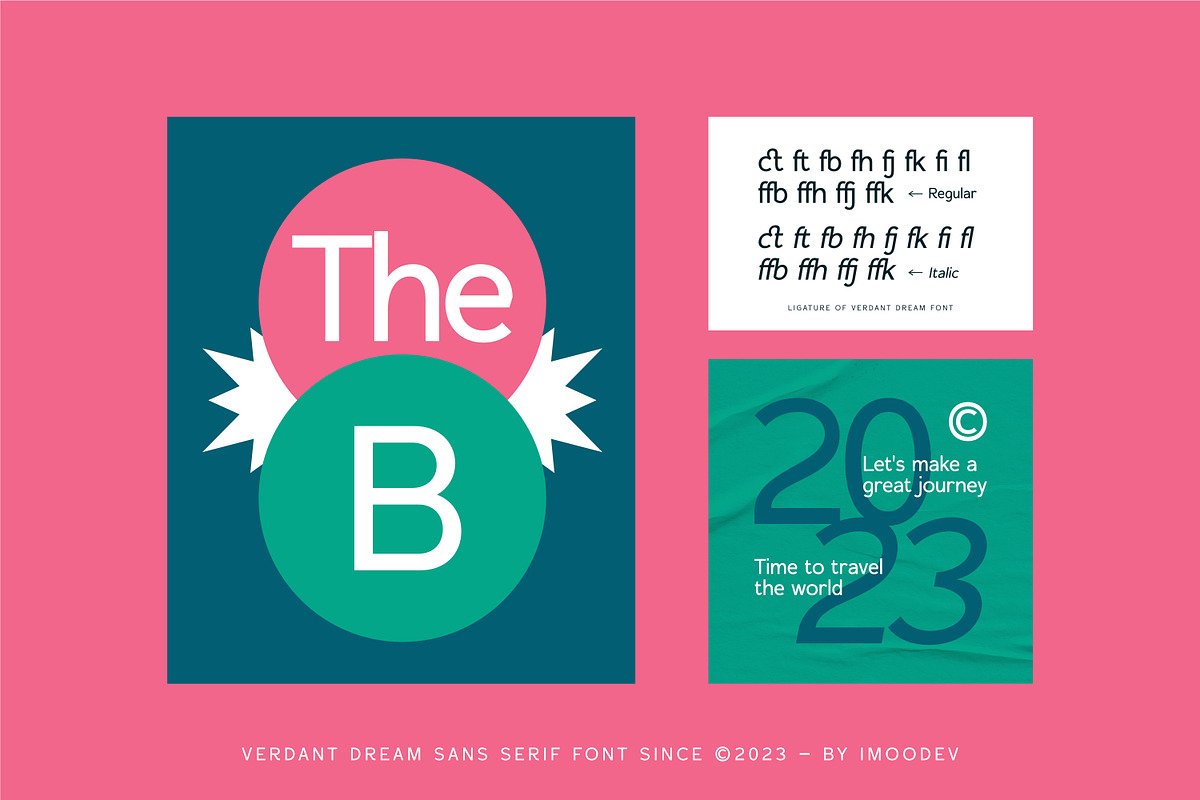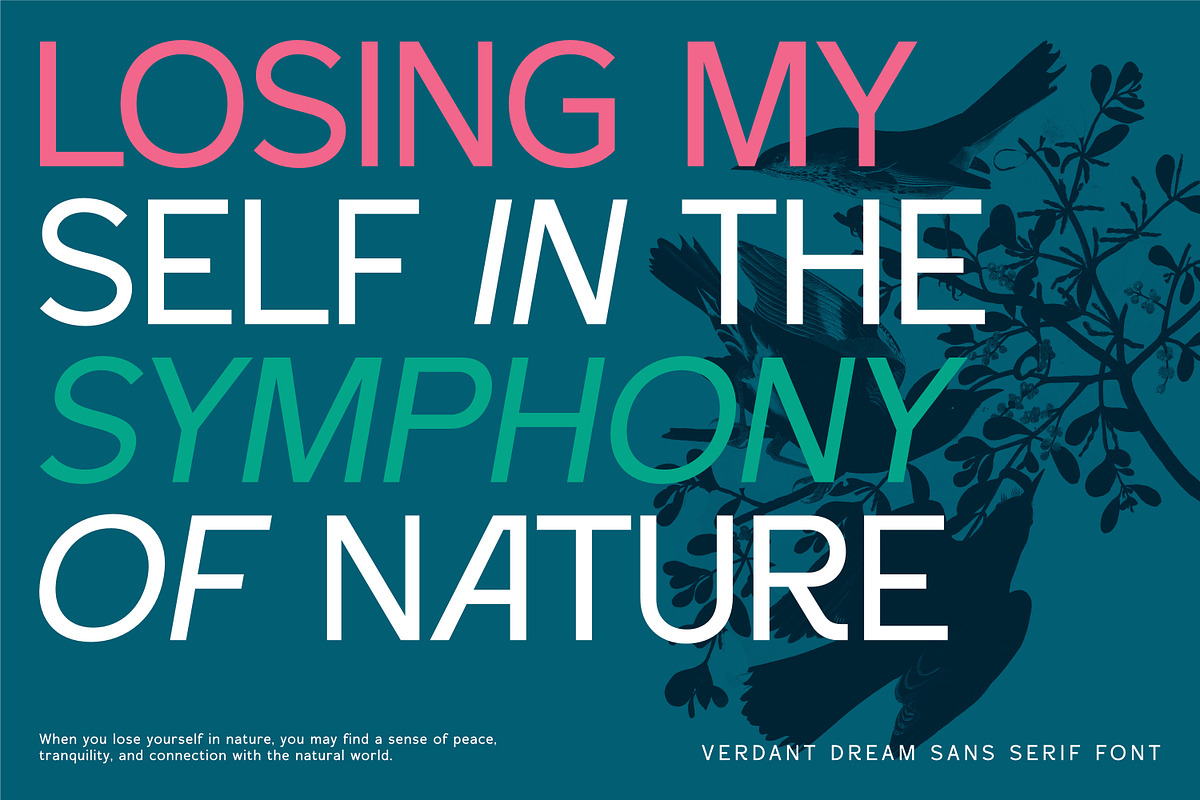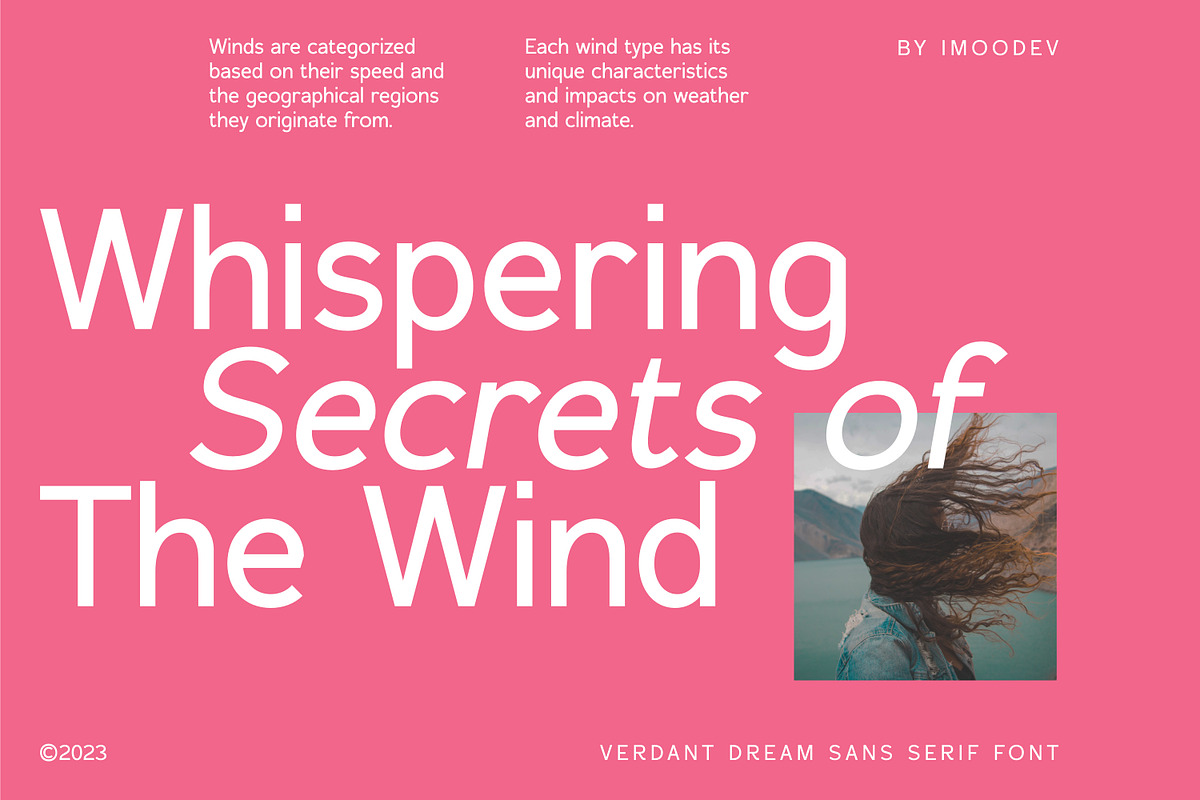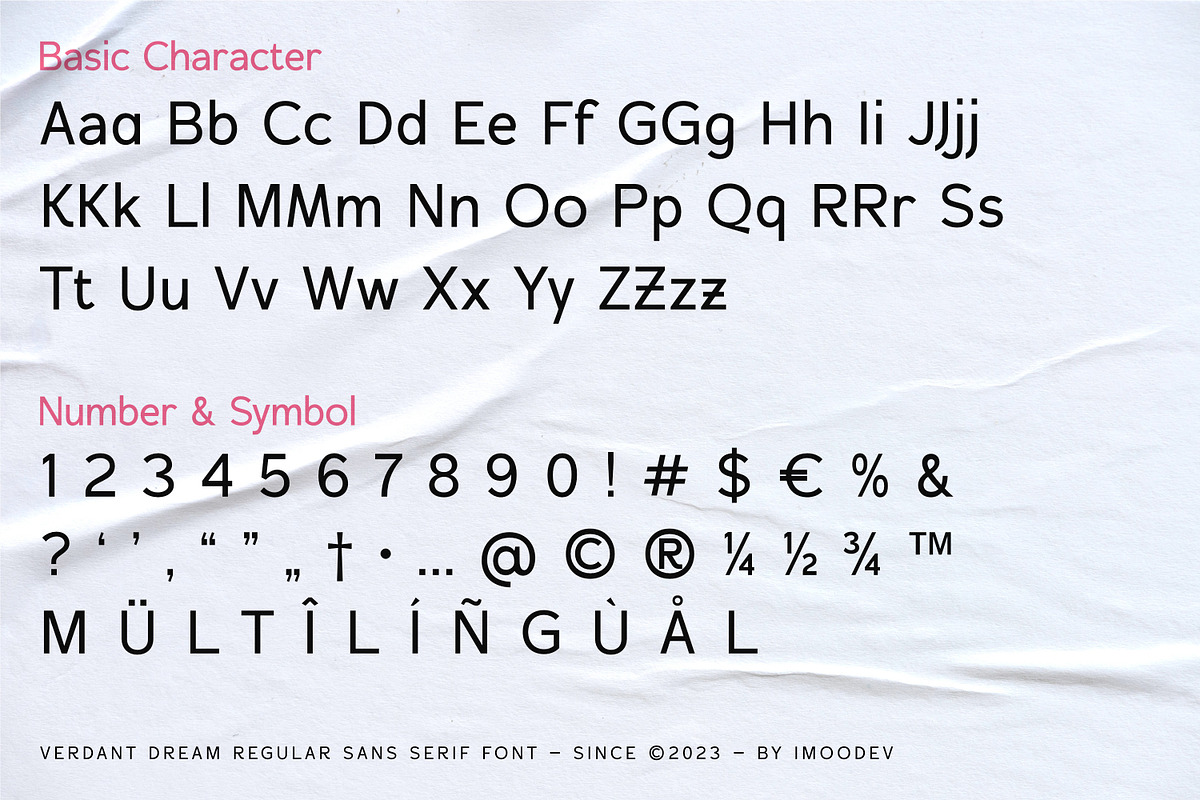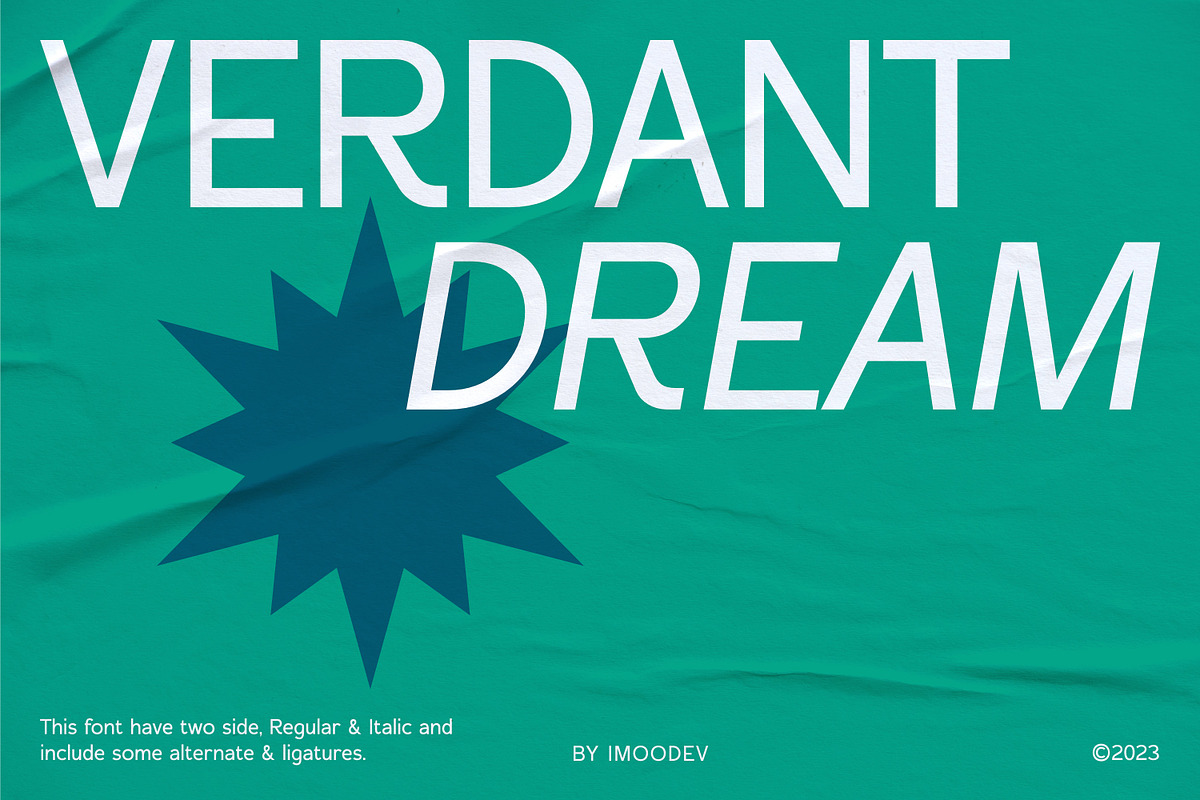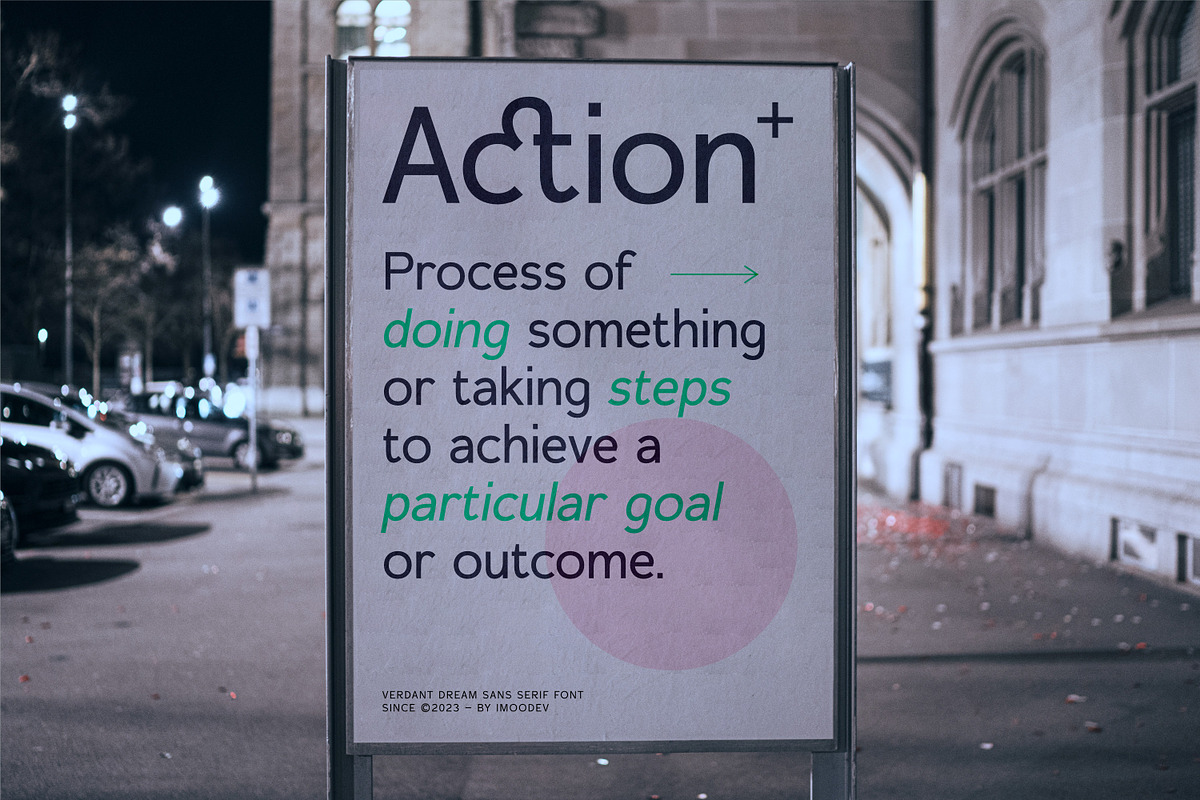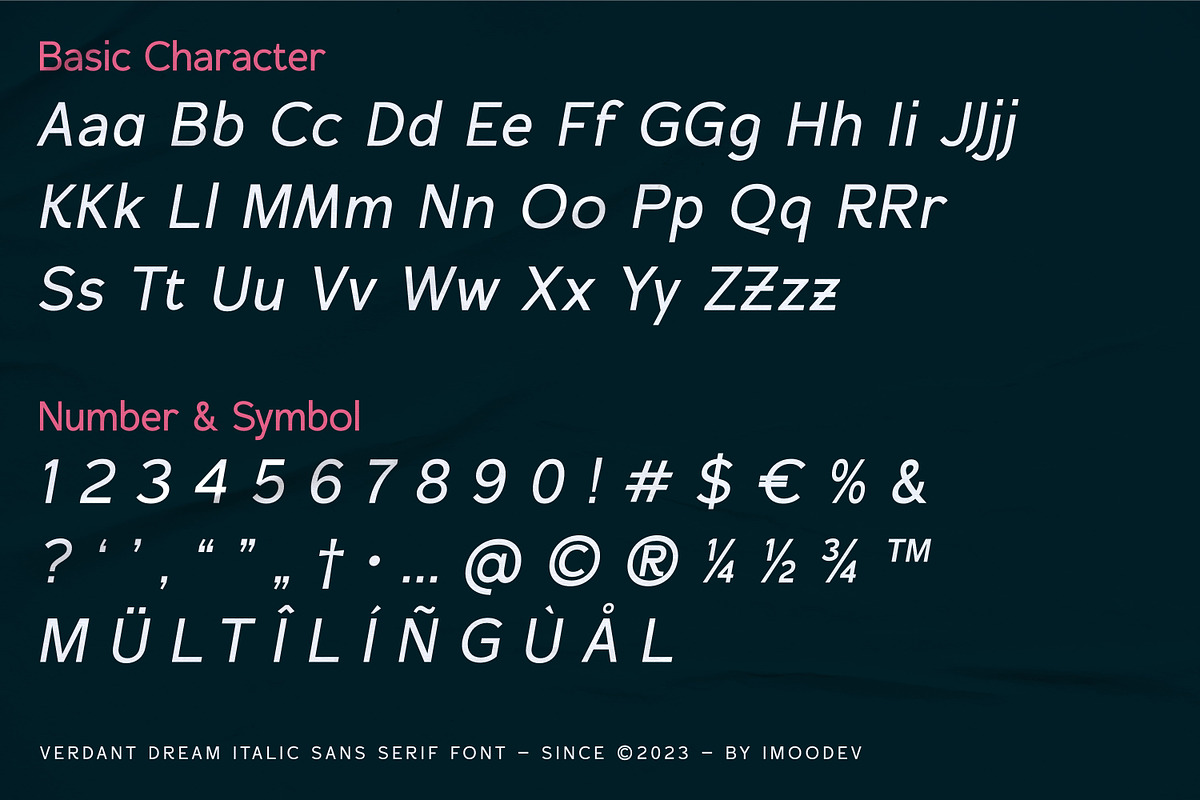
Verdant Dream - Minimal Typography
Verdant Dream is a clean, contemporary sans serif with a calm, airy character and a subtle touch of personality, it pairs geometric structure with soft, humanist warmth, giving text a fresh and approachable feel.
Verdant Dream suits branding, logos, posters, editorial design, magazines, packaging, signage, social media graphics, websites, and presentations.
Punctuation, Number, and Symbol
Opentype Features